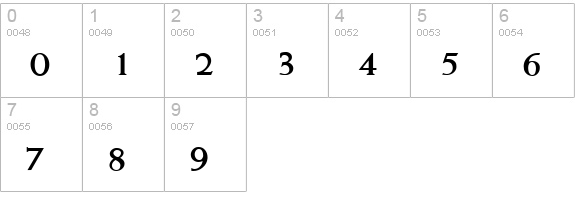
QTWeise Bold Font Details
QTWeise Bold is a strong, high-contrast variant in the QTWeise typeface family \xE2\x80\x94 well suited to headlines, attention-grabbing titles, and strong calls-to-action.
Introducing QTWeise Bold, a visually striking and beautifully crafted font that exudes confidence and modernity. With its bold and captivating presence, this font is perfect for making a strong statement in your designs. QTWeise Bold boasts strong and powerful letterforms that demand attention. Its clean lines and sharp edges give it a contemporary and edgy feel, making it an ideal choice for various design projects. Whether you are creating eye-catching headlines, impactful posters, or stylish branding materials, QTWeise Bold will effortlessly elevate your creations to new heights. One of the most appealing aspects of QTWeise Bold is that it is freely available to download at FontsMarket.com. This means that you can easily access and incorporate this stunning font into your projects without any hassle. The freedom to use QTWeise Bold enables you to explore limitless possibilities and unleash your creativity. With its wide range of glyphs and versatile nature, QTWeise Bold offers endless customization options. Whether you want to emphasize certain words, add a touch of elegance, or create a bold and striking visual impact, this font provides the flexibility to meet your design needs. Designed with meticulous attention to detail, QTWeise Bold ensures legibility and readability across various mediums and sizes. It guarantees that your messages will be delivered with clarity and impact, whether in print or digital formats. Embrace the power and sophistication of QTWeise Bold, and let it transform your designs into unforgettable works of art. Download this exceptional font for free at FontsMarket.com and elevate your creative endeavors to new heights.